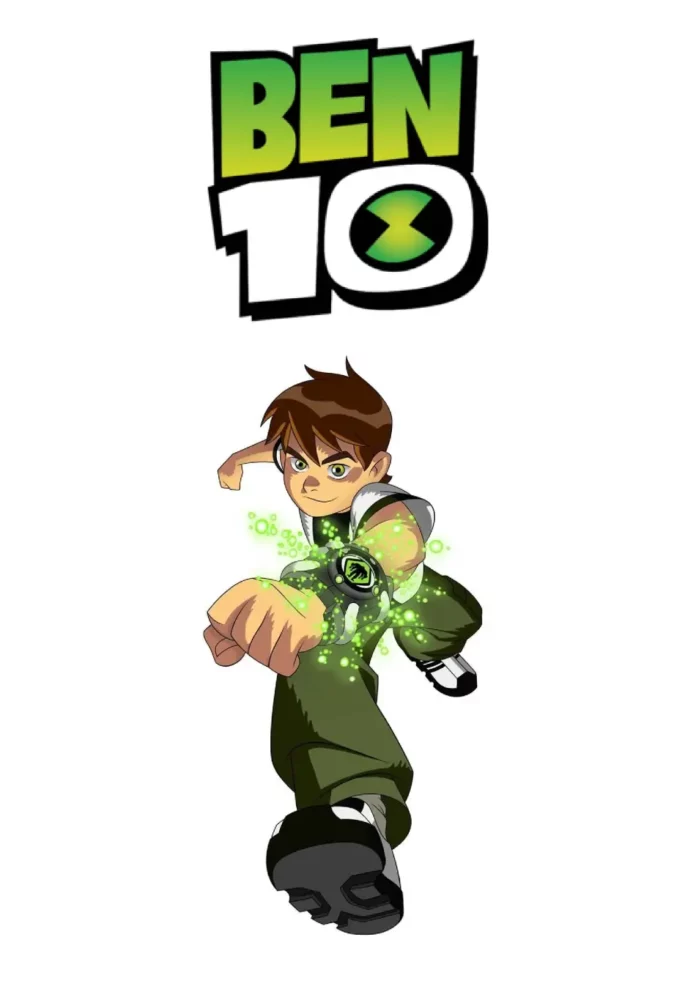
Ben 10 Font
If you are looking for your childhood hero, Ben 10 Font, you’re in the right place! Ben 10 is an animated media franchise created by the Man of Action. The franchise revolves around a young boy named Ben Tennyson. He discovers a mysterious device called the Omnitrix, which allows him to transform into different alien species. Ben uses his new powers to fight evil and save the world, along with his cousin Gwen and his grandfather Max.
The Ben 10 title font is bold and futuristic, similar to Badaboom BB. This font is free to download and can be used for personal or commercial projects. Other fonts to consider are Obelix and Grobold.
Is this the exact font used for Ben 10?
Not exactly. The original lettering was custom drawn or is not publicly licensed, so the fonts here are close recreations. BADABB-font is the nearest match we have found.